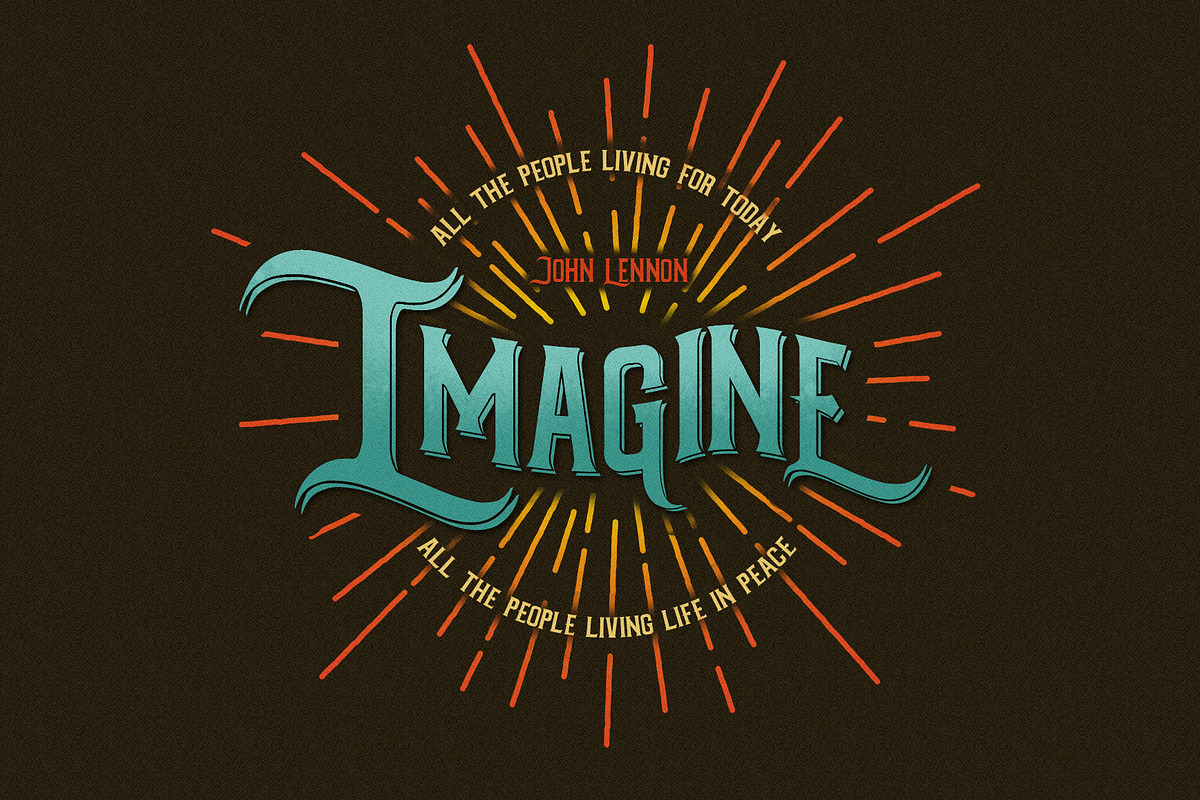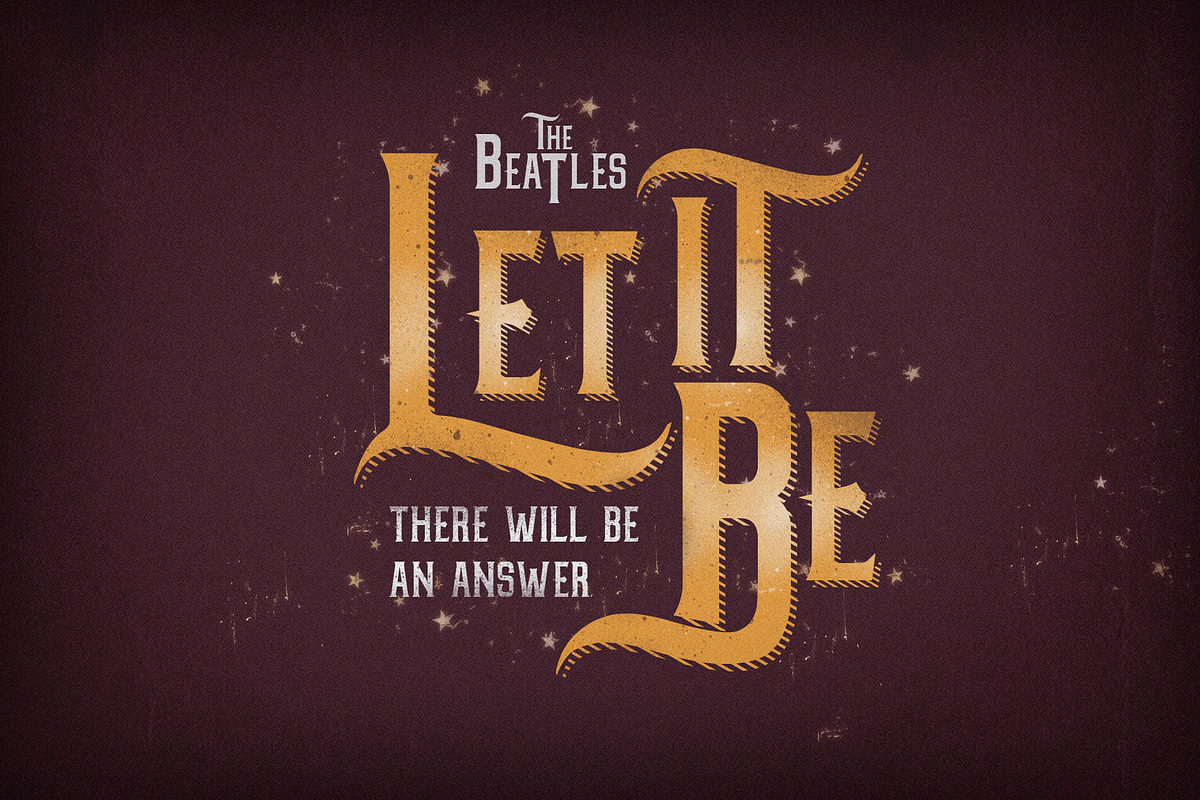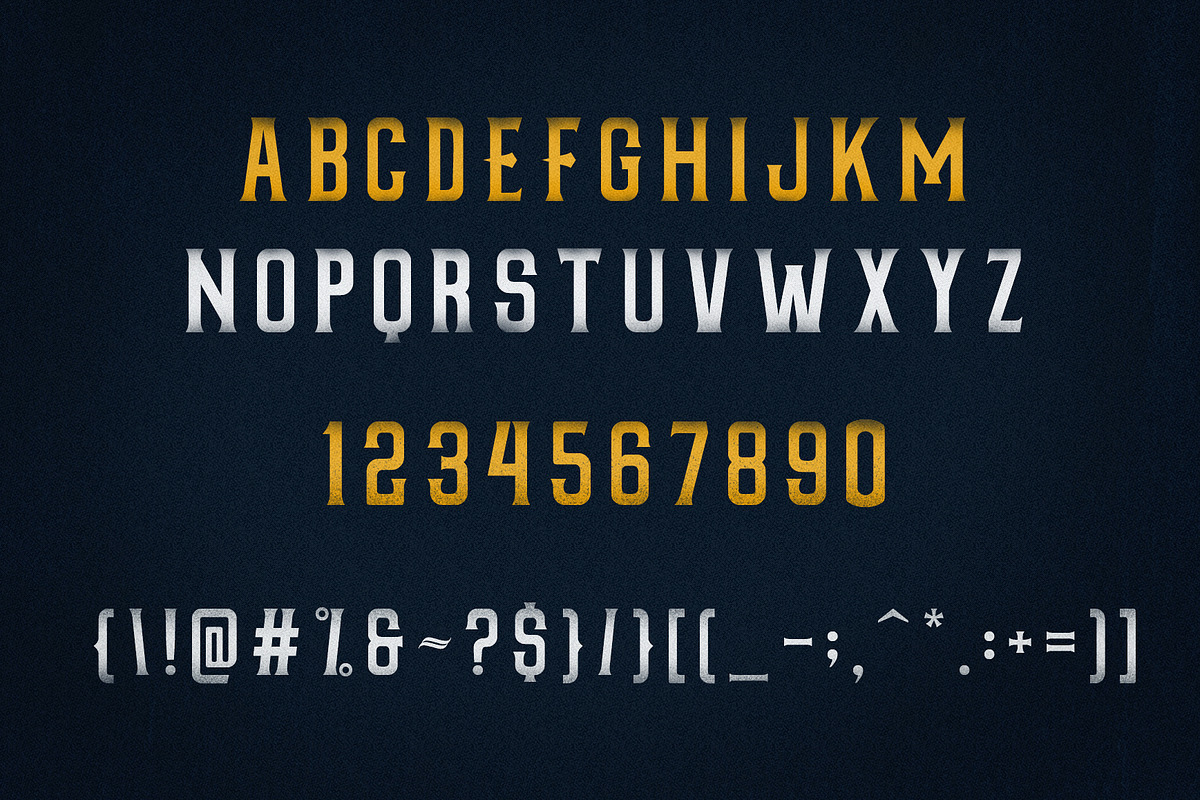
Nawaitu Typeface +
Nawaitu Typeface + by Adhreza is a font selected for branding, posters, packaging, typography.
- Nawaitu Typeface is my first display font with alternates to make an unique title that inspired by the natural form like the word 'nawaitu'
- The character is allcaps with alternate shapes in other file that you can choose.
Why Nawaitu Typeface + is worth a look
Nawaitu Typeface + by Adhreza fits naturally into Branding, posters, packaging, typography.